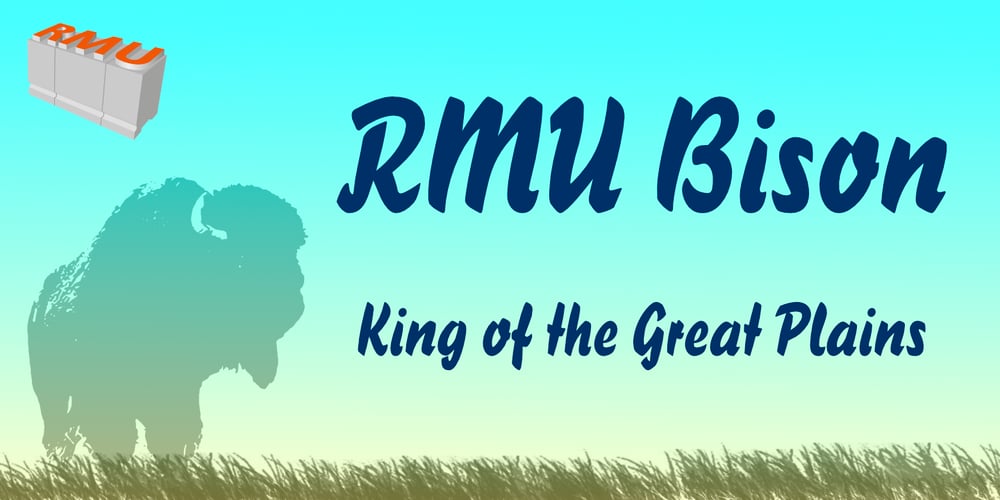
RMU Bison Font Family was designed by Ralph M. Unger and published by RMU. RMU Bison contains 1 styles and family package options. RMU Bison is my revival of Julius Kirns hot-metal font, which first was released by Weber in 1935. The versatile timeless brush font was extended as to cover the main Western and Central European languages plus Turkish.